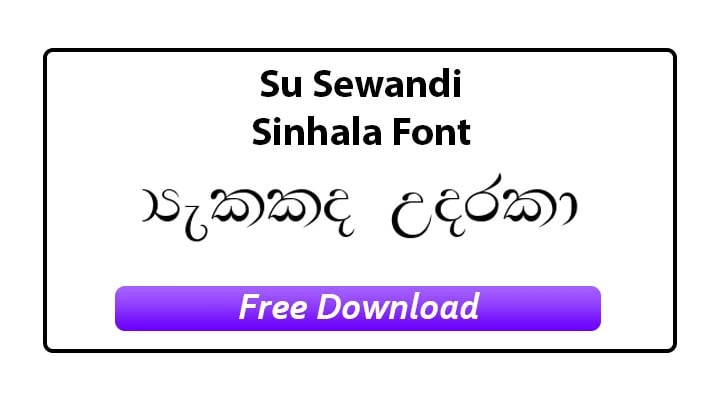
Su Sewandi Sinhala Stylish Font Free Download. This is one of the most popular Sinhala Language font. It is widely used by Sri Lankan Sinhala Peoples. This is mostly used …